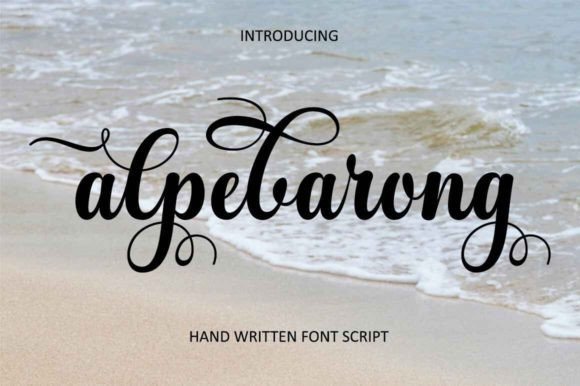
Introduction to Alpebarong Font
Alpebarong is a handwritten font with a playful and casual look.
The letters have a natural, hand-drawn style, making it great for fun and creative projects like greeting cards, posters, and invitations It adds a friendly and personal touch to any text.
Key Features of Alpebarong Font